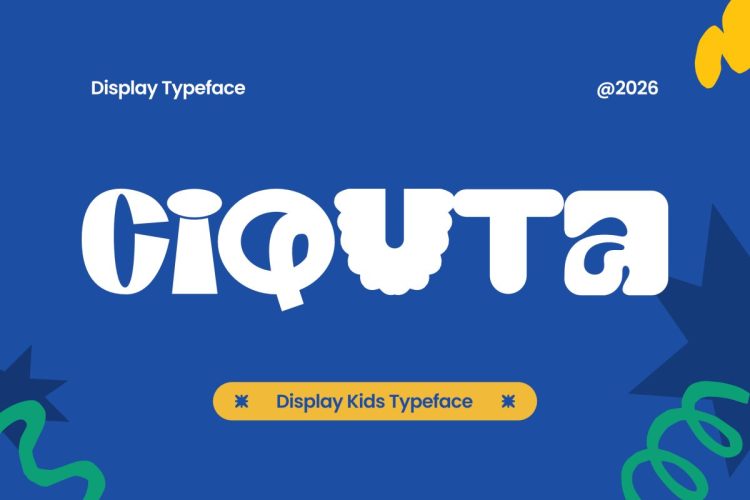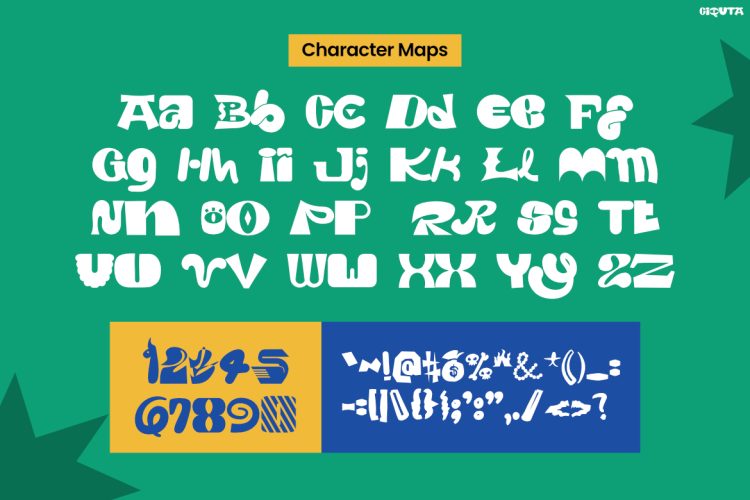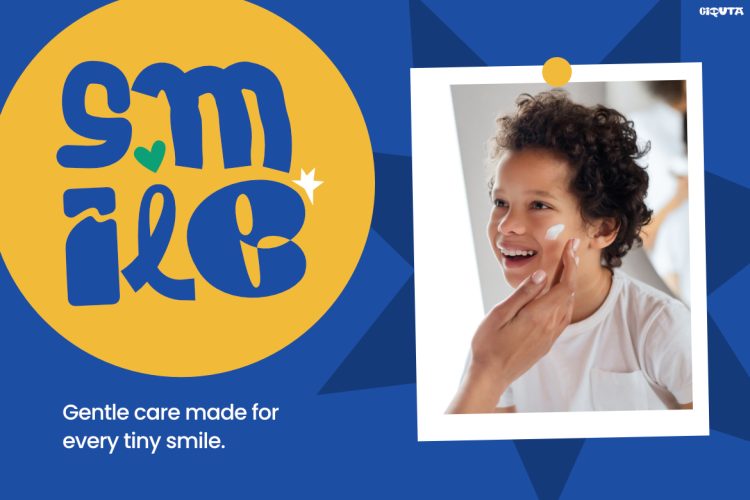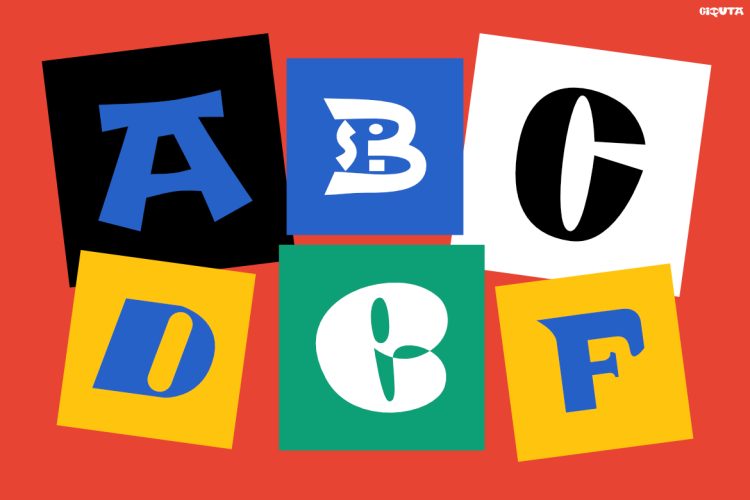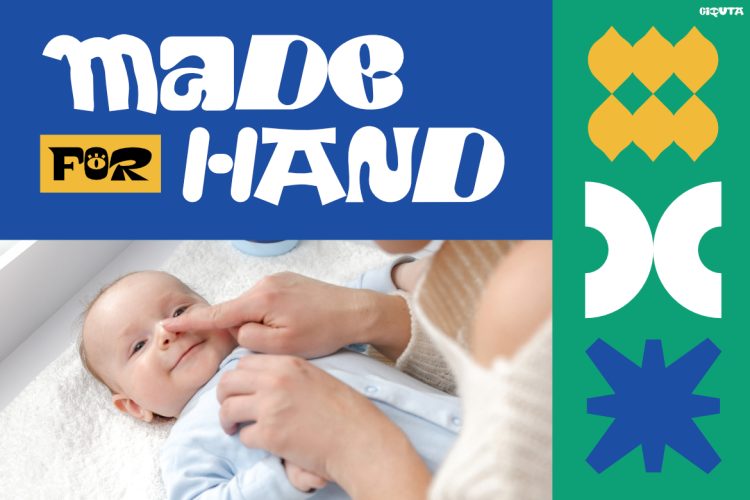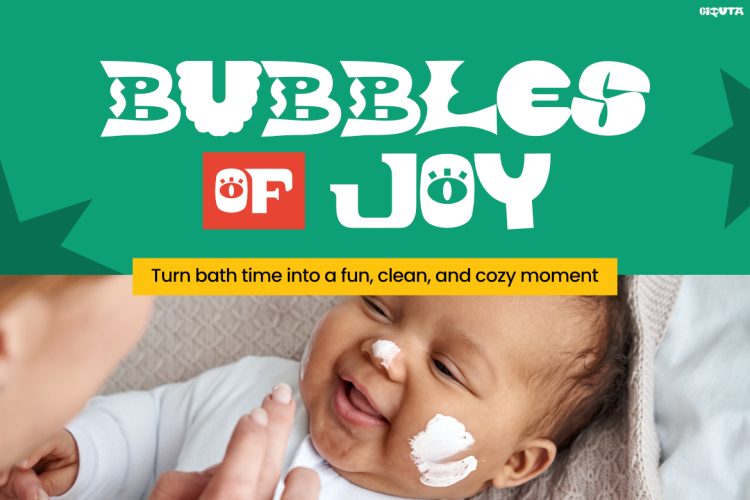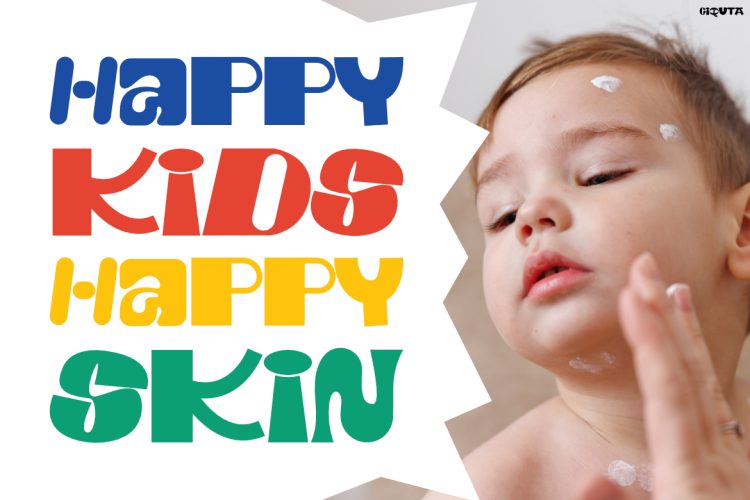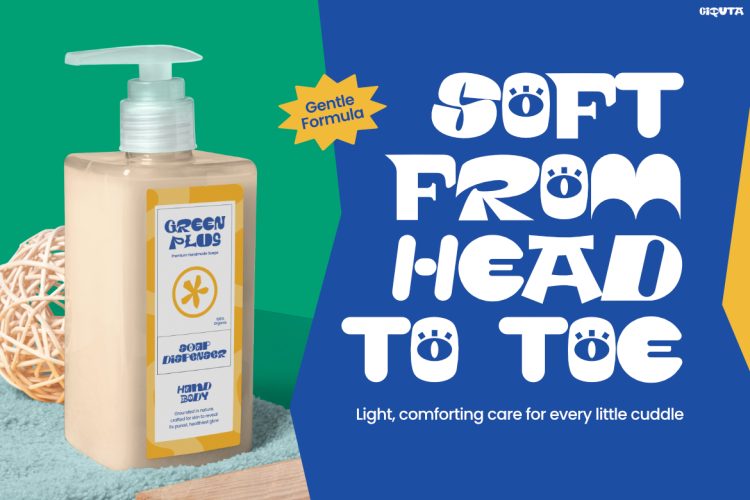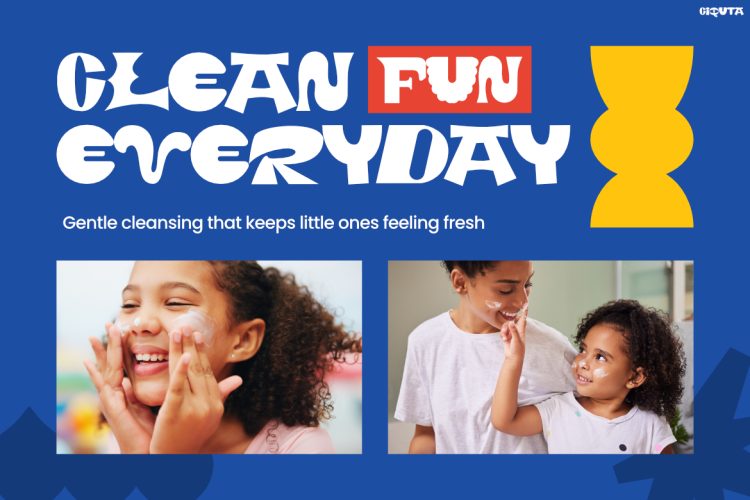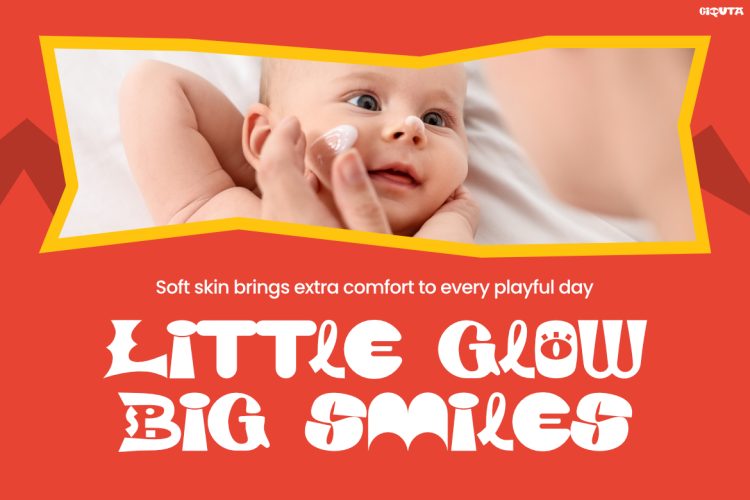
Kids Font CIQUTA โ Bright Letters. Happy Little Adventures.
Kids Font CIQUTA fills every design with cheerful energy through its playful curves, chunky letterforms, and handcrafted personality. Unlike ordinary kids fonts, CIQUTA combines soft rounded shapes with bold proportions to create typography that feels lively, friendly, and full of imagination. Moreover, every character adds warmth and charm, while the playful rhythm keeps every headline engaging and easy to read. As a result, your projects instantly become more inviting and memorable. In addition, the balanced design works beautifully across print and digital media, so your creativity shines in every format. Whether you’re designing for fun or education, CIQUTA helps every message feel joyful from the very first letter.
Made for Creative Minds and Happy Brands
Kids Font CIQUTA gives designers a fresh way to create colorful and expressive visuals. Not only does it make headlines more exciting, but it also builds a friendly personality that children and families instantly love. Furthermore, it fits baby products, children’s books, educational materials, toy packaging, daycare branding, birthday invitations, classroom decorations, posters, stickers, social media graphics, apparel, snack packaging, and creative event promotions. Meanwhile, its bold shapes remain clear at every size, while the handcrafted details add extra character without sacrificing readability. Consequently, every layout feels more playful, approachable, and full of positive energy.
Kids Font CIQUTA Perfect For
- Kids branding
- Baby products
- Children’s books
- Educational projects
- Toy packaging
- Birthday invitations
- Stickers and posters
- Social media graphics
Let Creativity Smile First
If you want typography that spreads happiness with every word, CIQUTA is the perfect choice. Furthermore, its playful style brings instant personality to every project. At the same time, its clean construction keeps every design polished and readable. Therefore, your audience connects with your message more quickly and remembers it longer. Finally, choose CIQUTA today and turn every creative idea into a colorful story worth sharing.